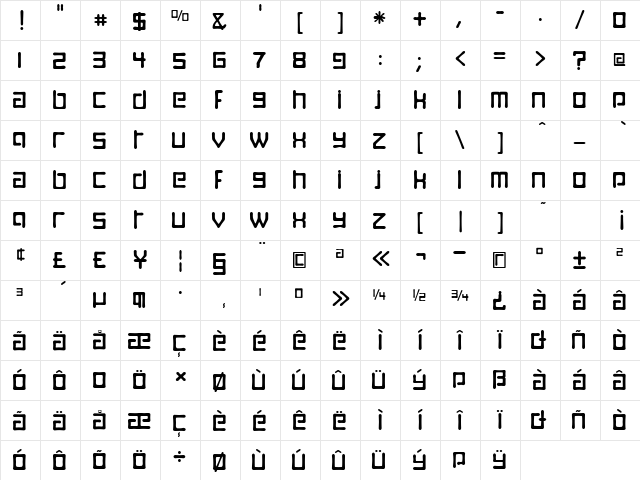
Digitalis Boneface Regular
Design Context for Digitalis Boneface Typeface
Digitalis Boneface has a distinctly futuristic character, with geometric precision and clean angles that feel at home in technology, gaming, and sci-fi contexts.